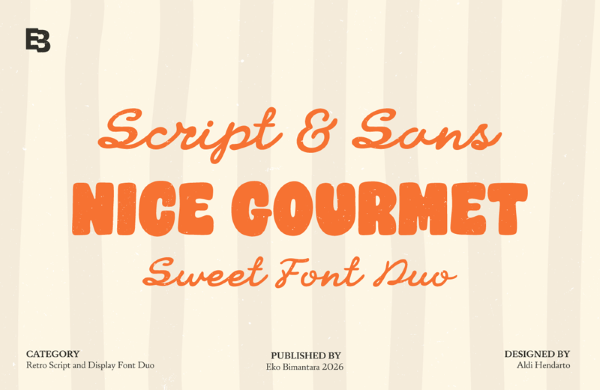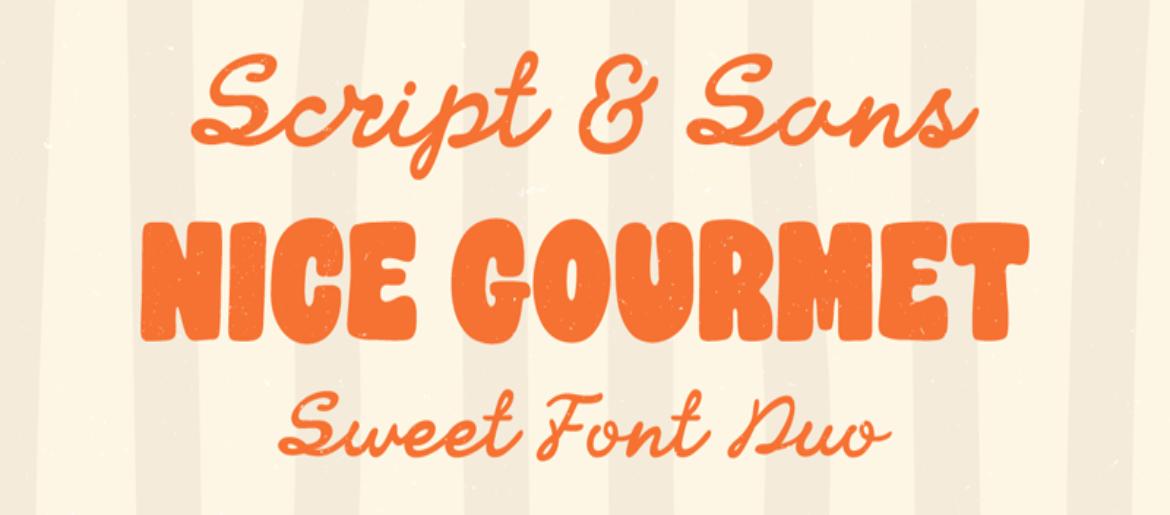
Nice Gourmet Sans Font
Nice Gourmet Sans by Eko Bimantara is a groovy display sans-serif that blends retro-inspired flair with contemporary food and lifestyle aesthetics. Its letterforms carry a warm, organic looseness — neither perfectly geometric nor strictly humanist, but something more playful and expressive in between. With 248 glyphs in the trial release, it arrives with solid character coverage for display use. It feels right at home on artisan food packaging, café menus, culinary brand identities, and any design that wants to feel both flavourful and fashionably nostalgic. Free for personal use.